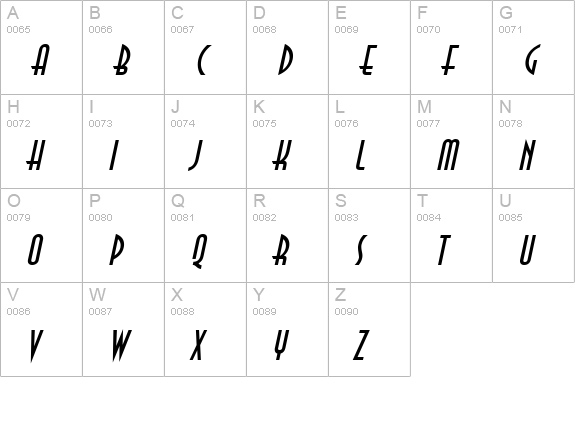
Asia Italic is a distinctive, italic variant in the Asia typeface family \xE2\x80\x94 well suited to design and typography projects.
Asia Italic font is a versatile and elegant typeface that adds a touch of sophistication to any design project. With its sleek and stylish italicized letters, Asia Italic exudes a sense of modernity and creativity. This font is perfect for use in branding, editorial design, and creative projects where a unique and contemporary look is desired. Best of all, Asia Italic font is completely free to download at FontsMarket.com. So whether you're a graphic designer looking to enhance your portfolio or a business owner seeking to elevate your brand's image, Asia Italic font is the perfect choice for adding a touch of flair to your projects. Download Asia Italic font today and take your designs to the next level!